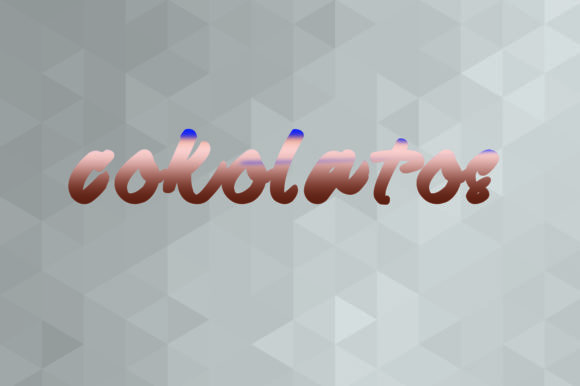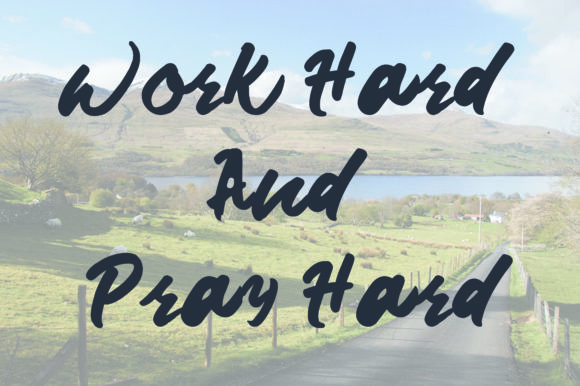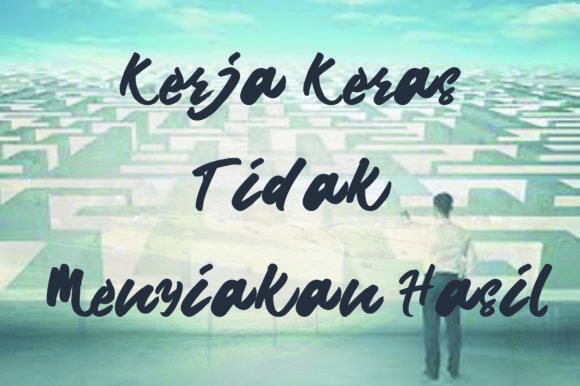
HomeScript FontsCokolatos Font Script Fonts Cokolatos Font FacebookXPinterestWhatsApp Cokolatos Font Poster 2 Cokolatos Font Poster 3 Cokolatos Font Poster 4 About Cokolatos Font The Cokolatos is a bold handwritten font. It has a fresh and modern style and will give any design a fun feel. DOWNLOAD NOW People also explored Willia Laffisya Font Constante Font Happy New Year Font Honelesty Font Quanter Real Delight Font Cahaya Font Essenza Font 312 0 TagsCokolatos Font Previous articleMuliana Script FontNext articleDongatta Story Font LEAVE A REPLY Cancel reply Comment: Please enter your comment! Name:* Please enter your name here Email:* You have entered an incorrect email address! Please enter your email address here Website: Save my name, email, and website in this browser for the next time I comment. Personal Use Free Charletto Personal Use Free Read more about this font Love Story Personal Use Free Read more about this font Unsteady Overseer Personal Use Free Read more about this font Imelda Personal Use Free Read more about this font BLOG How to Cut Any Font on Cricut: Convert a Font to SVG (Free) Turn any font into a clean SVG so it cuts crisp on Cricut - a quick 3-step workflow using a free font-to-SVG tool. Transform Your Website: Elevate Your Typography with 7 Best Web Font Generators The 10 Best Handwriting Fonts to Add Personality to Your Designs Modern Sans-Serif Fonts That Brands Love in 2025